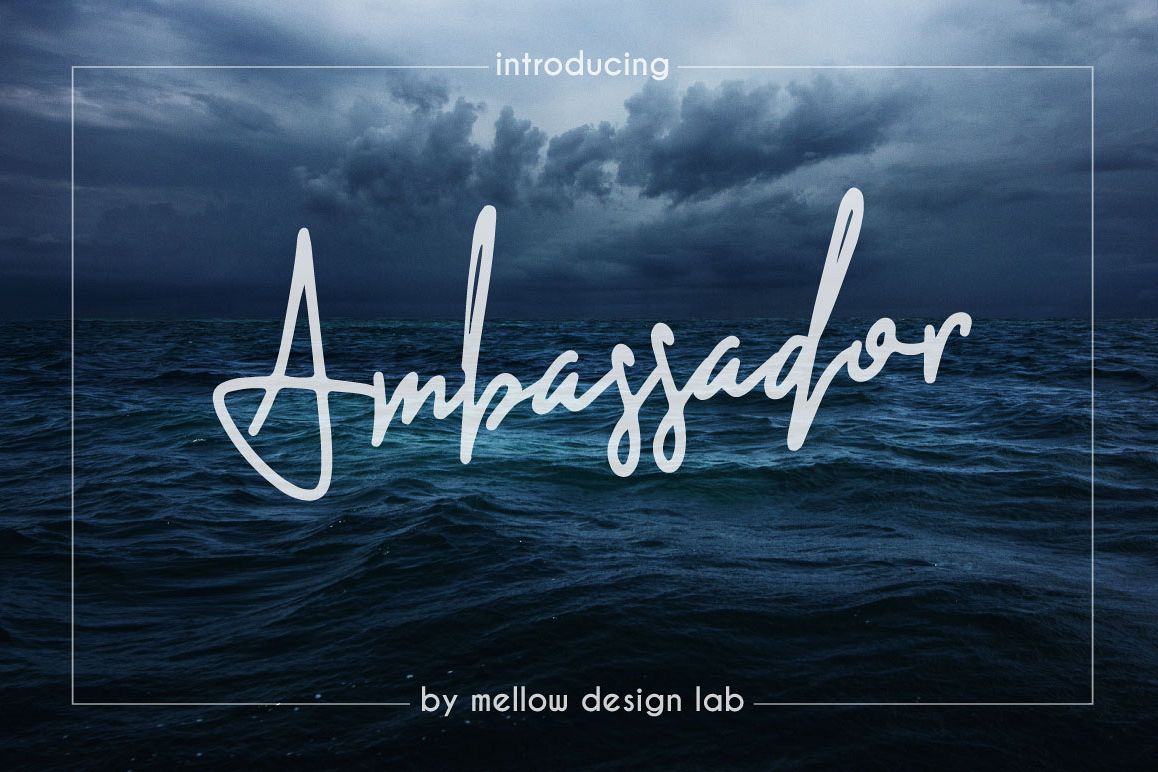
Ambassador
It's modern script font.This fonts are perfect for your blog or postcard for friend. Also with their help, you can create a logo or beautiful print for your pillow. Or just use for your small business, book covers, stationery, marketing, magazines.
Ambassador Script.